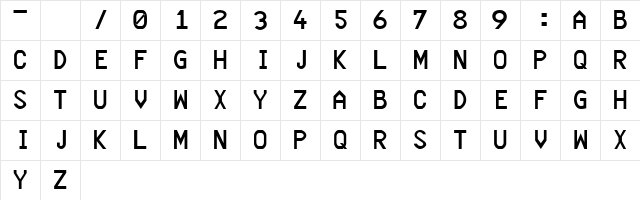
TheJermCA Light
Design Context for TheJermCA Typeface
TheJermCA offers clean, dependable letterforms without strong stylistic allegiance, making it a practical choice for designers who need flexibility. Its slender proportions lend an understated elegance to any composition.
Pro Tip: Use TheJermCA in both headline and body roles to test its range before committing to a single application.